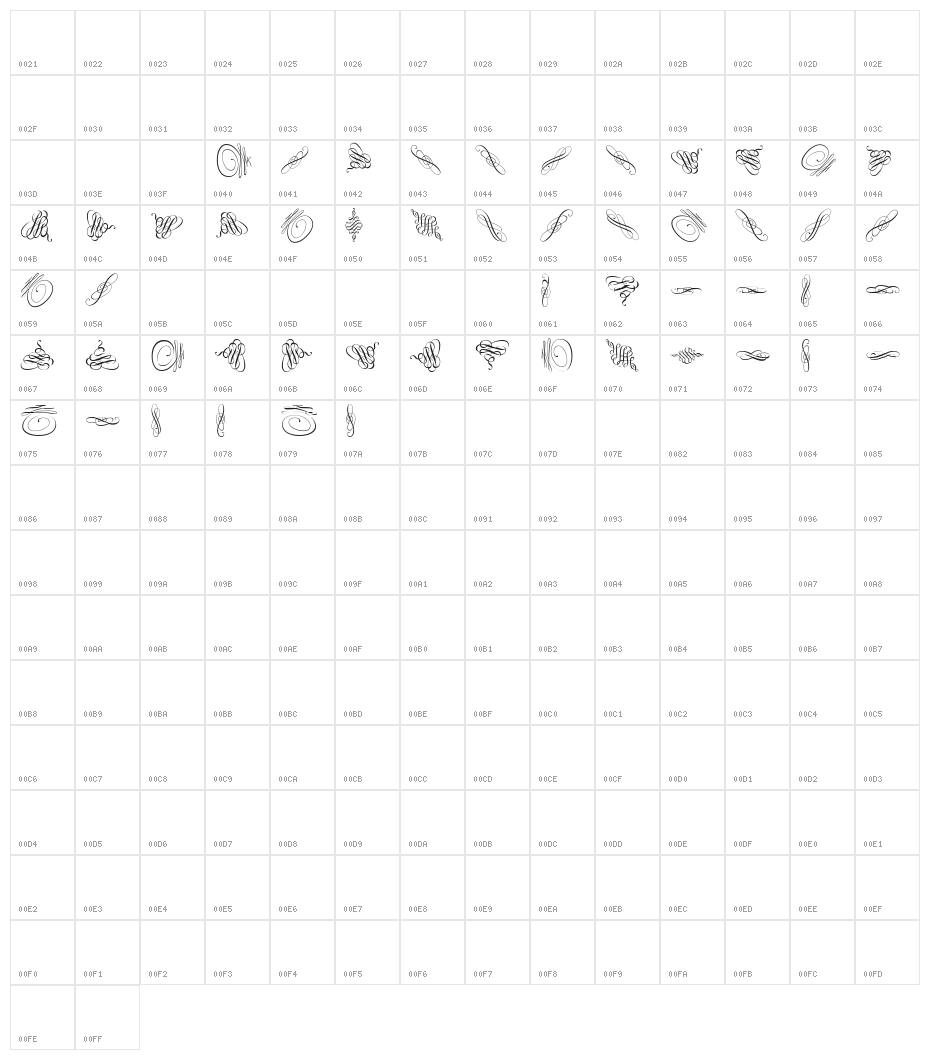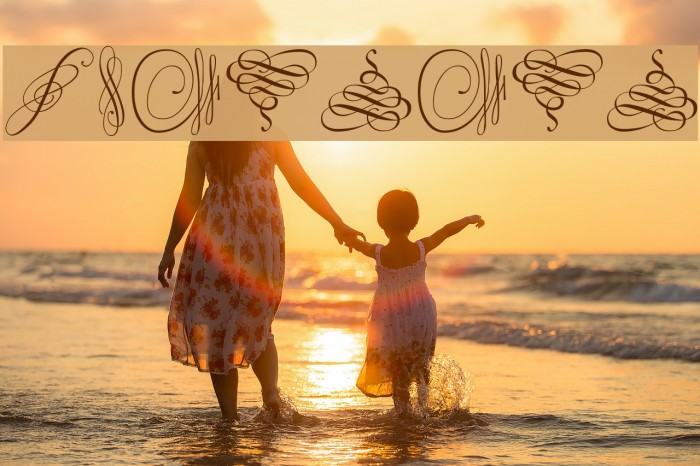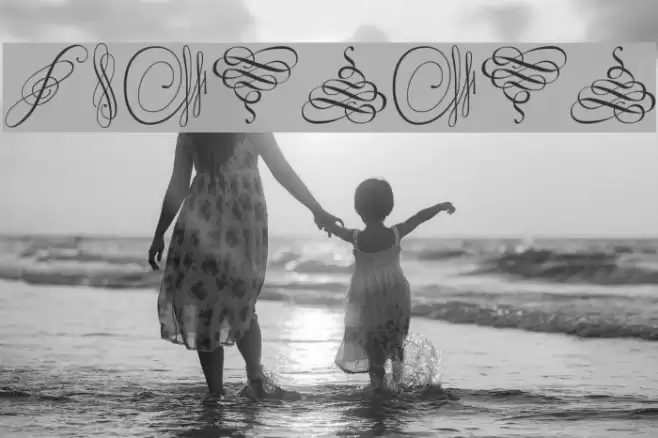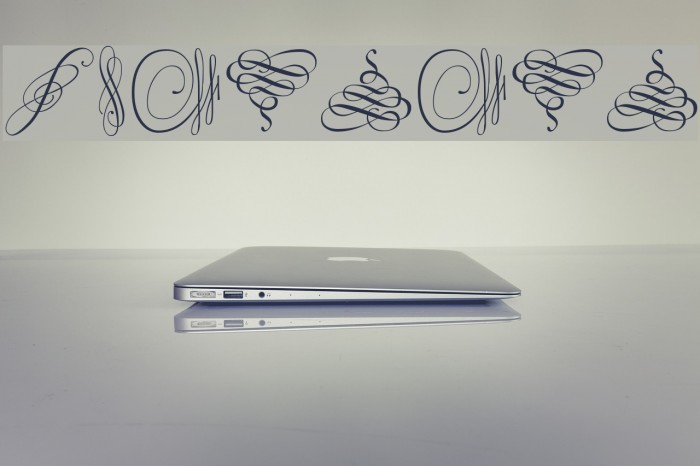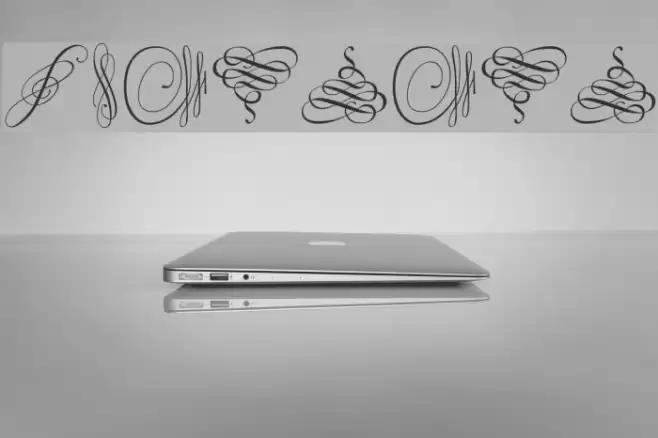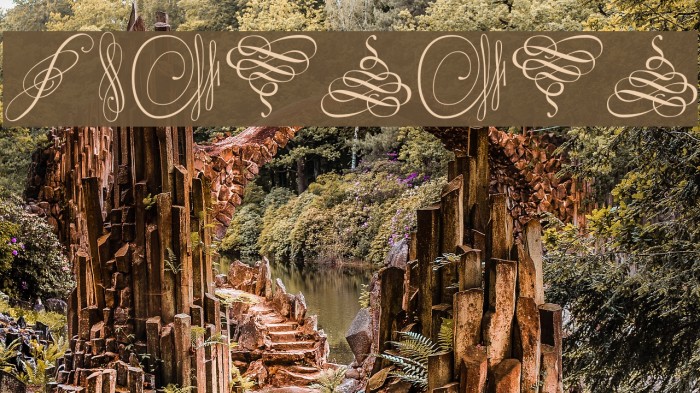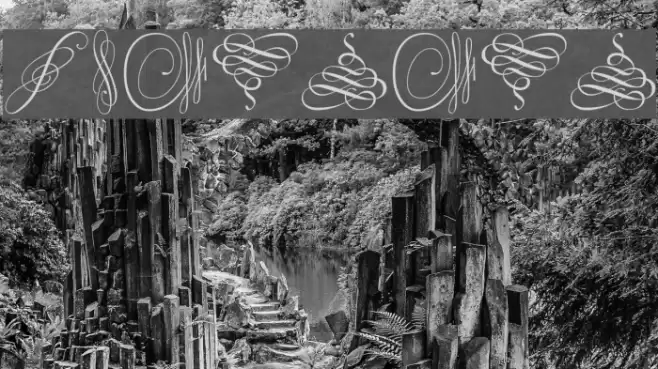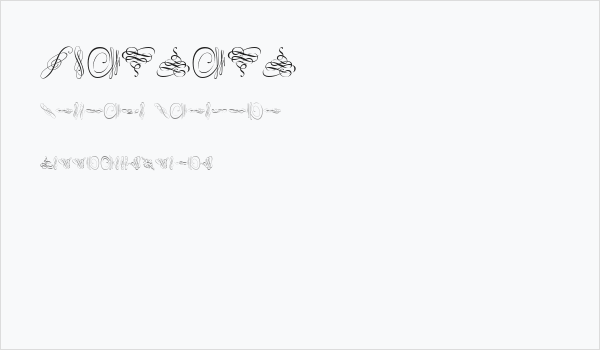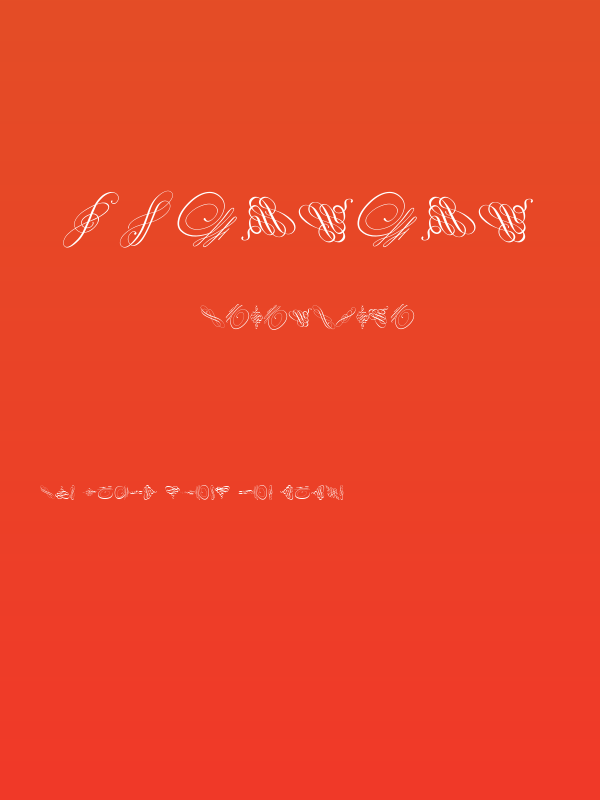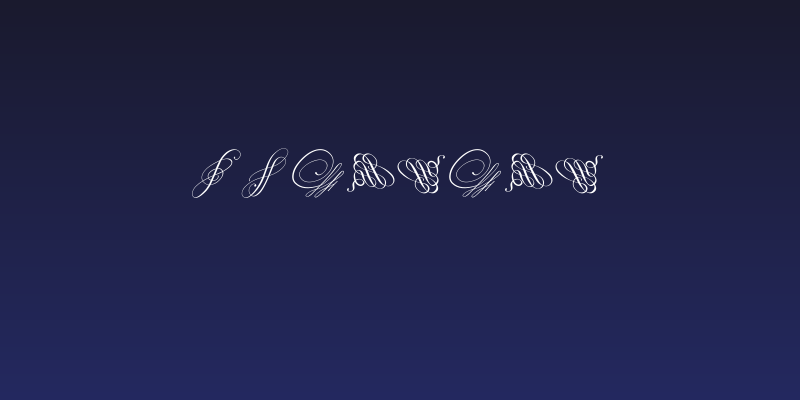
Swinging Font
Swinging Description
This is an ornamental and decorative font characterized by its intricate and swirling designs. Each character is composed of elaborate loops and flourishes, creating a sense of elegance and sophistication. The font lacks traditional letterforms, instead presenting a series of artistic glyphs that resemble calligraphic embellishments. The overall appearance is highly stylized, making it suitable for decorative purposes rather than practical text applications. The intricate details and flowing lines suggest a handcrafted aesthetic, reminiscent of vintage or classical design elements.
| Use Case | Logos, Decorative elements |
| Proposed Projects | Ideal for wedding invitations, decorative certificates, branding for luxury products, or any project requiring an elegant and artistic touch. |